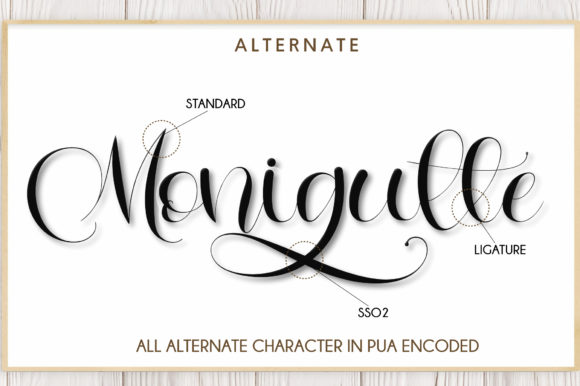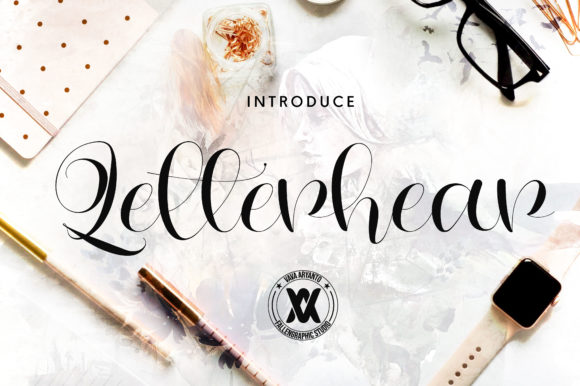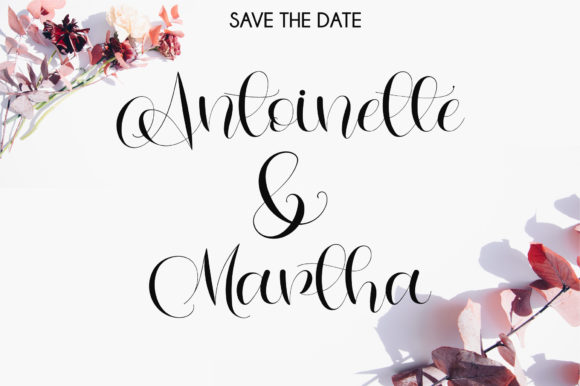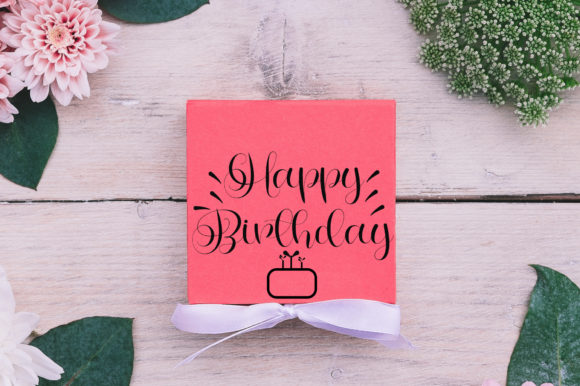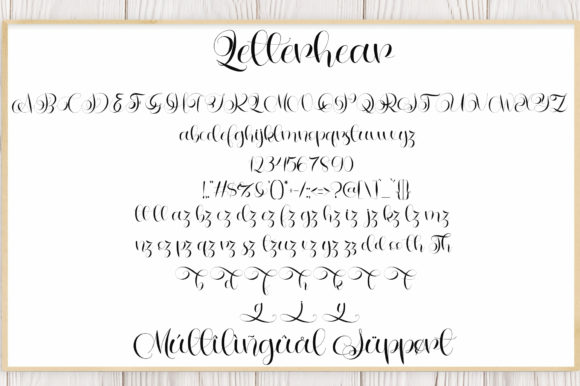
Letterhear Font
About Letterhear Font
Letterhear is a fun and beautiful handwritten font with bold swashes. It will turn any creative project into an eye catcher!